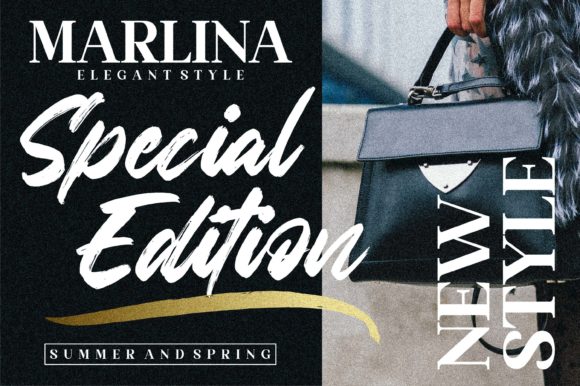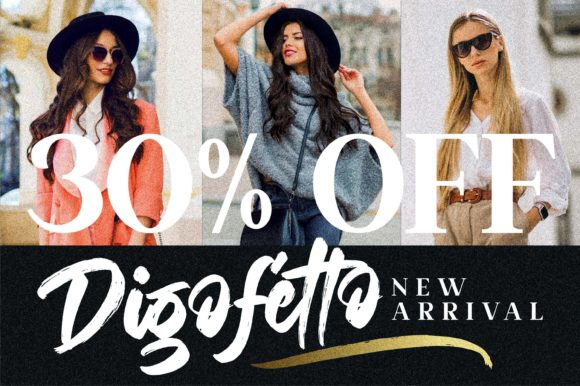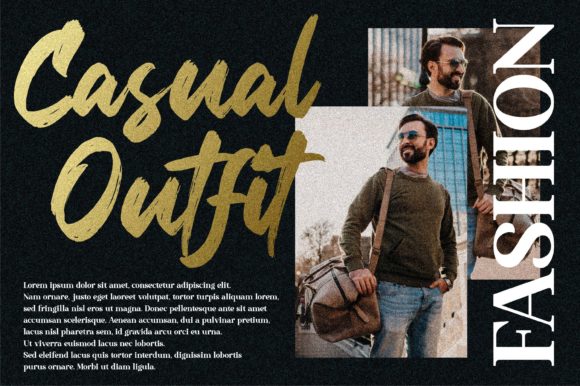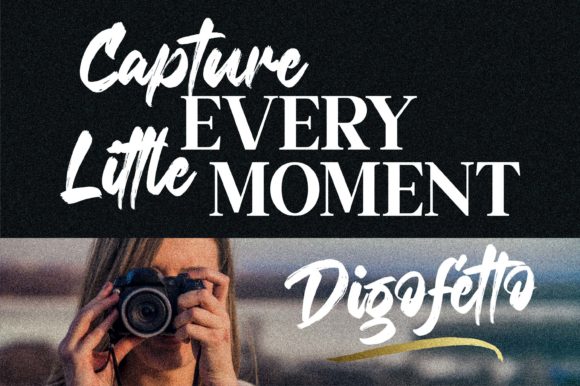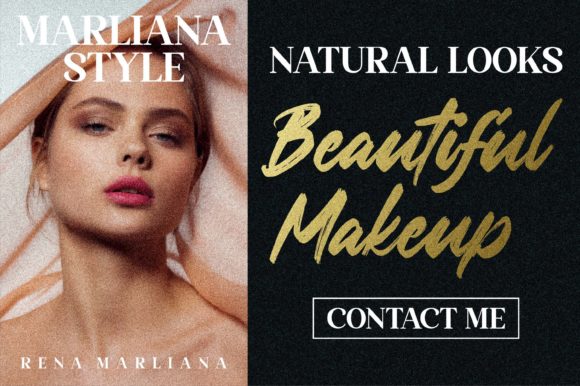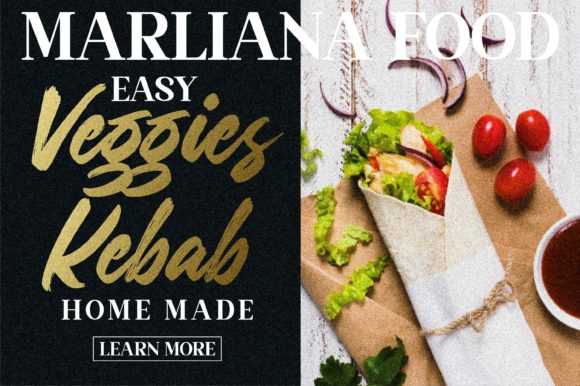
Introducing Digofetto Font: The Ultimate Choice for Creative Designs
Are you tired of using the same old fonts for your designs? Look no further! Digofetto Font is here to revolutionize your creative projects with its fresh, unique, and playful edge. This stunning script font is perfect for designers and crafters who want to add a touch of personality to their work.
What is Digofetto Font?
Digofetto Font is a carefully crafted script font that exudes a carefree attitude and a playful vibe. Its unique design makes it stand out from the crowd, allowing you to create stunning designs that capture attention. Whether you’re working on a logo, invitation, wedding design, social media post, or any other creative project, Digofetto Font is the perfect choice.
Key Features of Digofetto Font
- Unique and Fresh Design: Digofetto Font boasts a one-of-a-kind design that will make your projects stand out from the rest.
- Playful Edge: The font’s playful edge adds a touch of whimsy and fun to your designs, making them more engaging and memorable.
- Carefree Attitude: Digofetto Font’s carefree attitude makes it perfect for designs that require a relaxed and casual vibe.
- Highly Versatile: This font is suitable for a wide range of design projects, from logos and invitations to wedding designs and social media posts.
Digofetto Font is a dream come true for designers and crafters who want to add a personal touch to their work. With this font, you can:
- Create stunning logos that capture the essence of your brand.
- Design beautiful invitations that set the tone for special occasions.
- Craft unique wedding designs that reflect the couple’s personality.
- Develop engaging social media posts that grab attention and drive engagement.
Why Choose Digofetto Font?
With so many fonts available, why choose Digofetto Font? Here are just a few reasons:
- Stand out from the crowd: Digofetto Font’s unique design ensures that your projects will stand out from the rest.
- High-quality design: Digofetto Font is designed with high-quality and precision, ensuring that your projects look professional and polished.
Tips for Using Digofetto Font
To get the most out of Digofetto Font, here are a few tips:
- Experiment with different sizes and colors to find the perfect combination for your design.
- Pair it with other fonts to create a unique and visually appealing design.
- Use it consistently across your designs to create a cohesive brand identity.